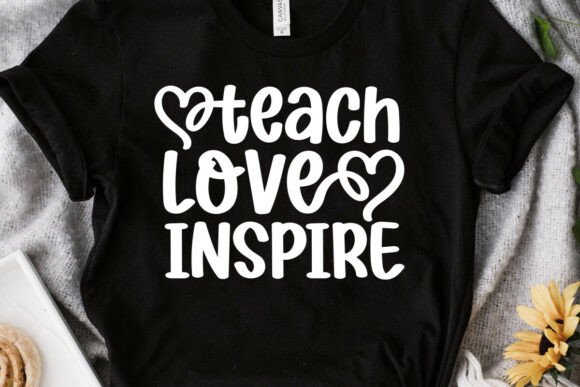
Dream Echo Font: Elevate Your Designs with a Modern, Stylish, and Flowing Handwritten Heart Font
In the world of typography, fonts play a vital role in conveying messages, expressing emotions, and creating visual identities. For designers, artists, and creatives, finding the perfect font can be a daunting task. However, if you’re looking for a modern, stylish, and flowing handwritten heart font, look no further than Dream Echo Font. In this article, we’ll explore the features, benefits, and uses of Dream Echo Font, and how it can elevate your designs to the next level.
What is Dream Echo Font?
Dream Echo Font is a modern, stylish, and flowing handwritten heart font that has taken the design world by storm. Its beautiful and well-balanced characters make it an ideal choice for creating eye-catching logos, branding, and quotes. With its unique and elegant design, Dream Echo Font is perfect for adding a touch of sophistication and personality to your designs.
Key Characteristics of Dream Echo Font
- Modern and Stylish: Dream Echo Font boasts a modern and stylish design that is sure to grab attention.
- Flowing Handwritten: The font features a flowing handwritten style that adds a touch of elegance and sophistication to your designs.
- Well-Balanced Characters: The characters in Dream Echo Font are well-balanced, making it easy to read and understand.
- Versatile: The font matches a wide pool of designs, making it a versatile choice for various design projects.
Uses of Dream Echo Font
Dream Echo Font is an incredibly versatile font that can be used in a variety of design projects, including:
- Logo Design: Create eye-catching logos that make a lasting impression with Dream Echo Font.
- Branding: Use Dream Echo Font to create a consistent visual identity for your brand.
- Quotes and Posters: Add a touch of elegance and sophistication to your quotes and posters with Dream Echo Font.
- Social Media Graphics: Use Dream Echo Font to create stunning social media graphics that grab attention.
- Wedding and Event Designs: Dream Echo Font is perfect for creating beautiful wedding and event designs, such as invitations, programs, and signage.
Benefits of Using Dream Echo Font
Using Dream Echo Font in your design projects offers numerous benefits, including:
- Unique and Creative: Dream Echo Font adds a unique and creative touch to your designs, setting them apart from others.
- Elegant and Sophisticated: The font’s elegant and sophisticated design makes it perfect for high-end designs and luxury brands.
- Easy to Read: The well-balanced characters in Dream Echo Font make it easy to read and understand.
- Versatile: Dream Echo Font matches a wide pool of designs, making it a versatile choice for various design projects.
Tips for Using Dream Echo Font
To get the most out of Dream Echo Font, follow these tips:
- Use it Sparingly: Use Dream Echo Font sparingly to make a lasting impression.
- Pair it with Other Fonts: Pair Dream Echo Font with other fonts to create a unique and creative visual identity.
- Experiment with Colors: Experiment with different colors to find the perfect combination that complements Dream Echo Font.
- Pay Attention to Kerning: Pay attention to kerning to ensure that the characters in Dream Echo Font are well-balanced and visually appealing.
In conclusion, Dream Echo Font is a modern, stylish, and flowing handwritten heart font that is perfect for creating eye-catching logos, branding, and quotes. Its unique and elegant design makes it an ideal choice for designers, artists, and creatives looking to add a touch of sophistication and personality to their designs. With its versatility, ease of use, and range of benefits, Dream Echo Font is a must-have font for any design project.
Final Thoughts
Dream Echo Font is a game-changer for designers, artists, and creatives. Its modern, stylish, and flowing handwritten design makes it perfect for creating stunning visual identities that leave a lasting impression. Whether you’re a seasoned designer or just starting out, Dream Echo Font is a must-have font that will elevate your designs to the next level.